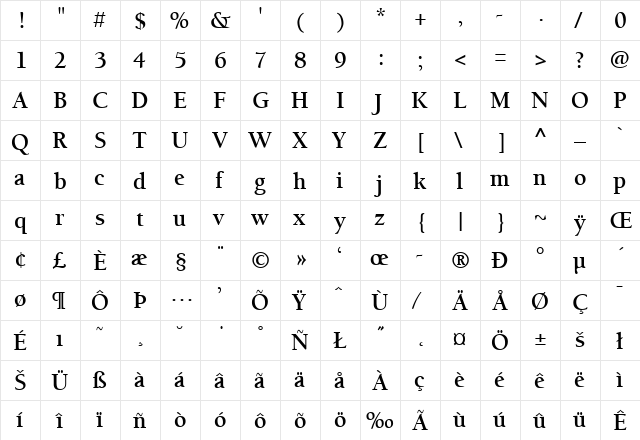
Berkeley-Bold Regular
Design Context for Berkeley-Bold Typeface
Berkeley-Bold offers clean, dependable letterforms without strong stylistic allegiance, making it a practical choice for designers who need flexibility. Its bold stroke weight gives it real presence on the page.